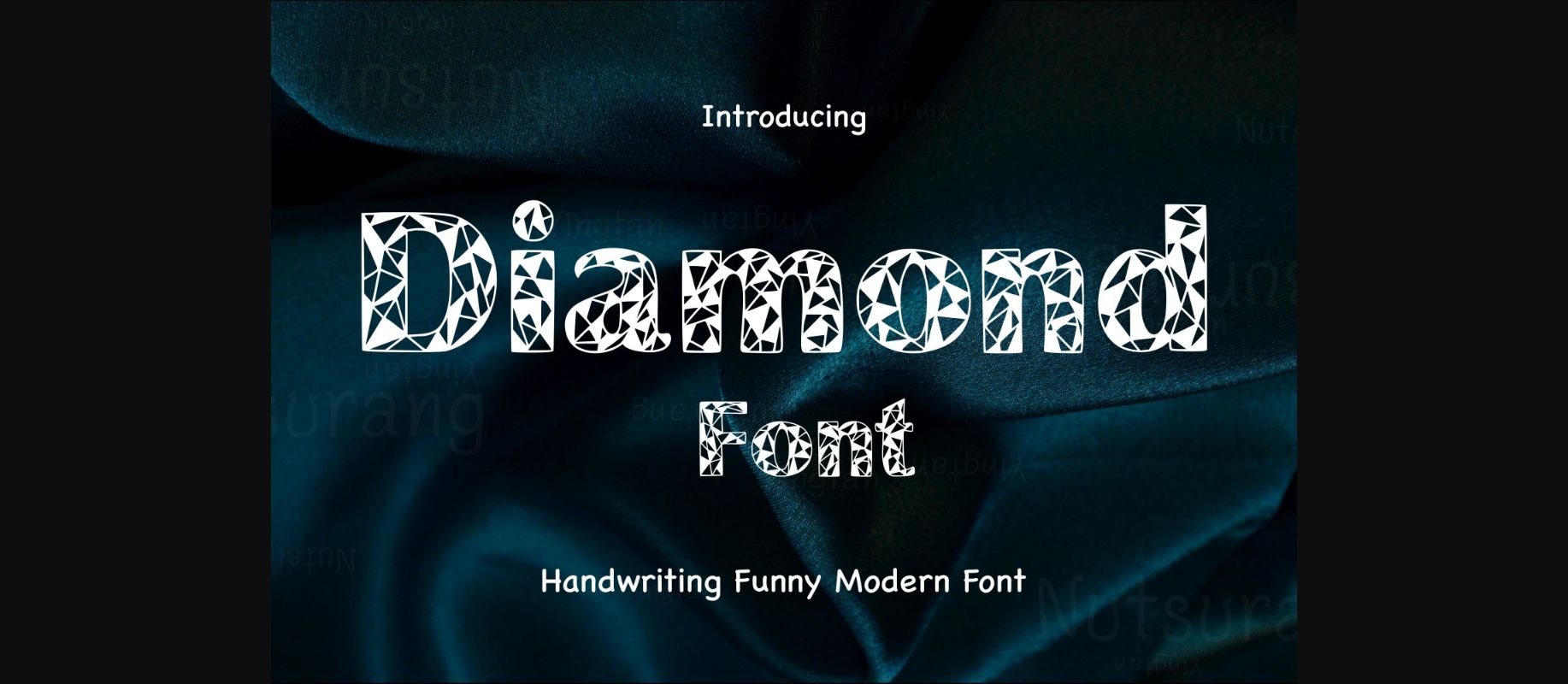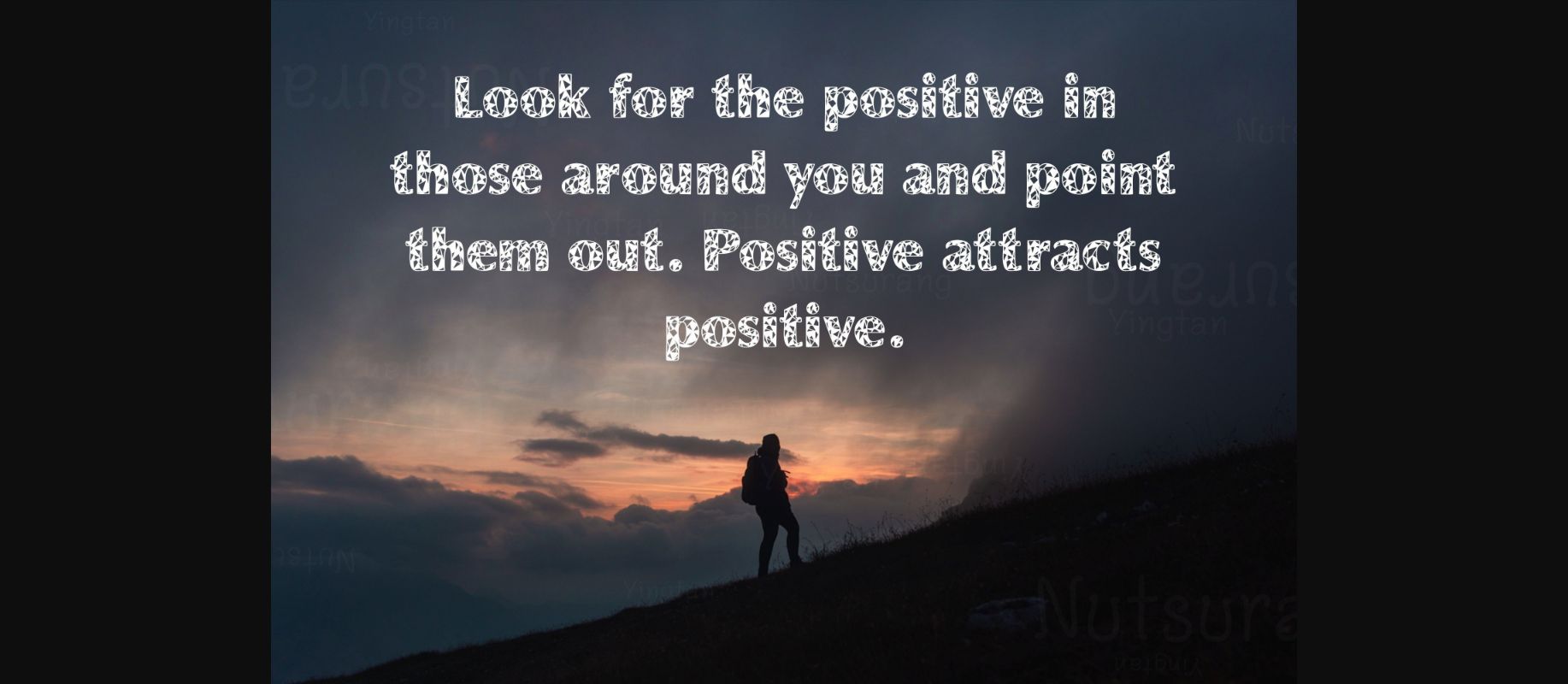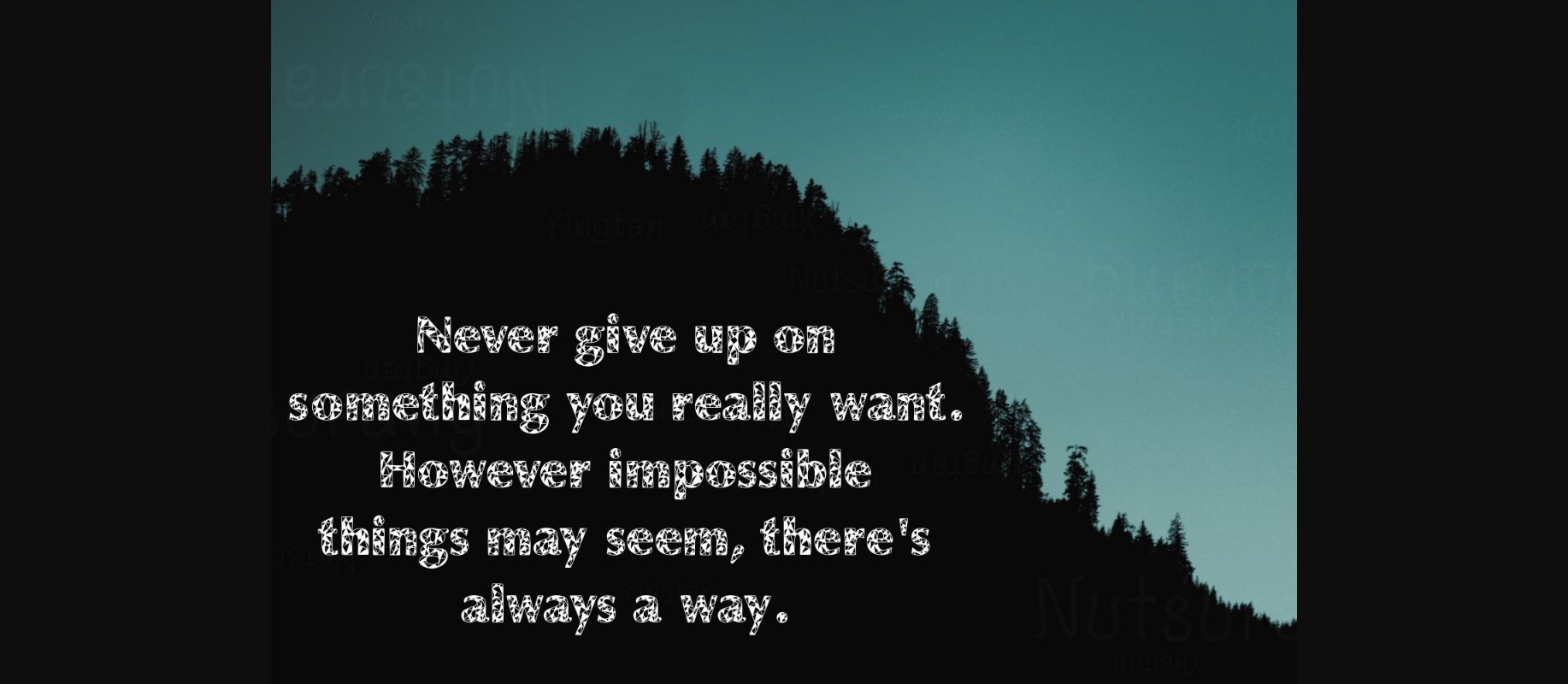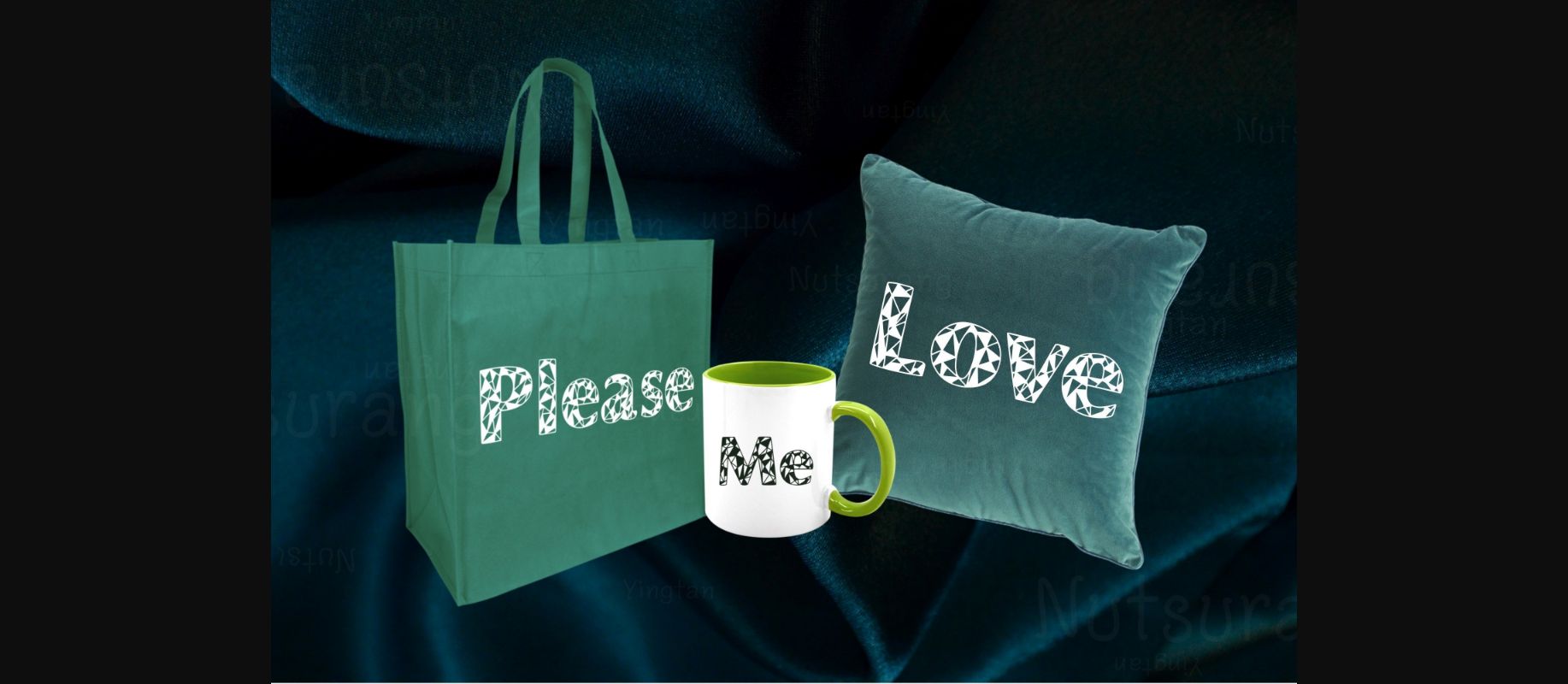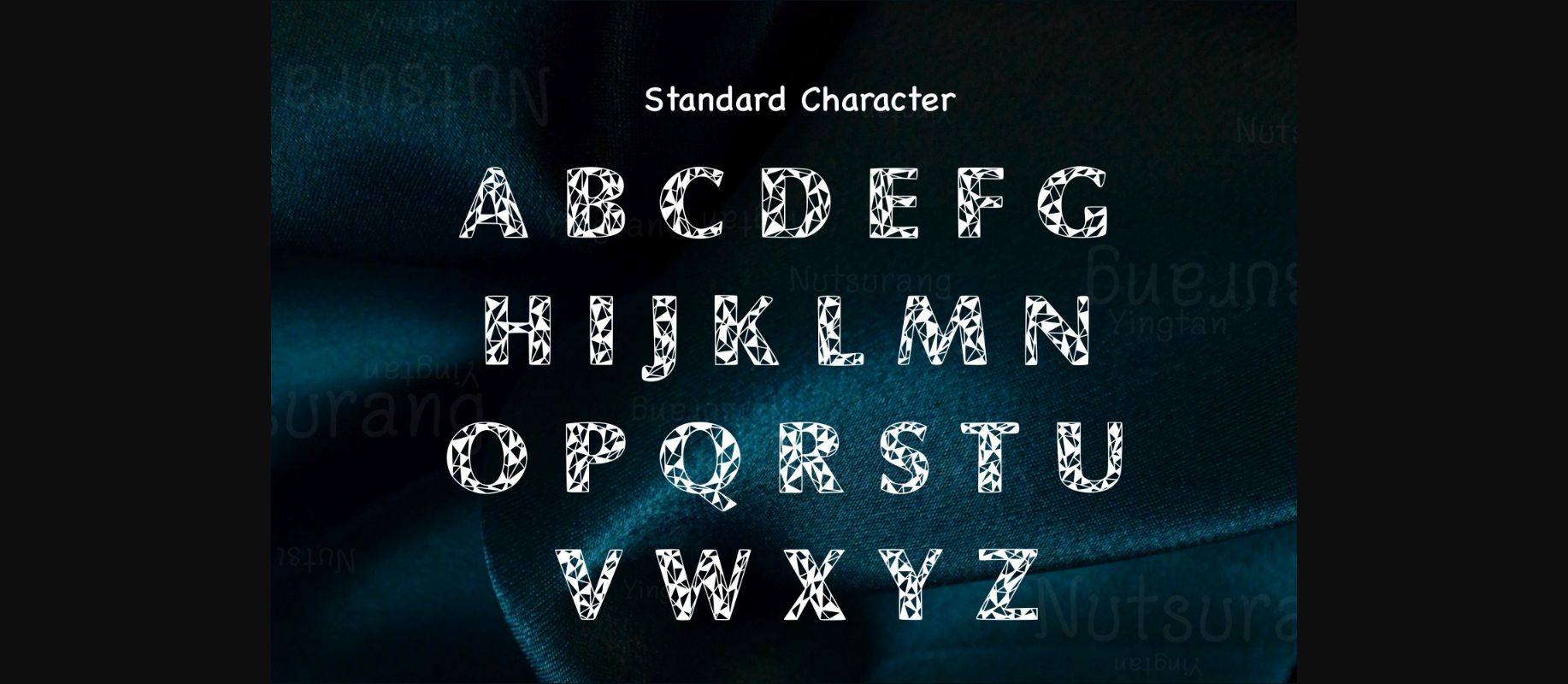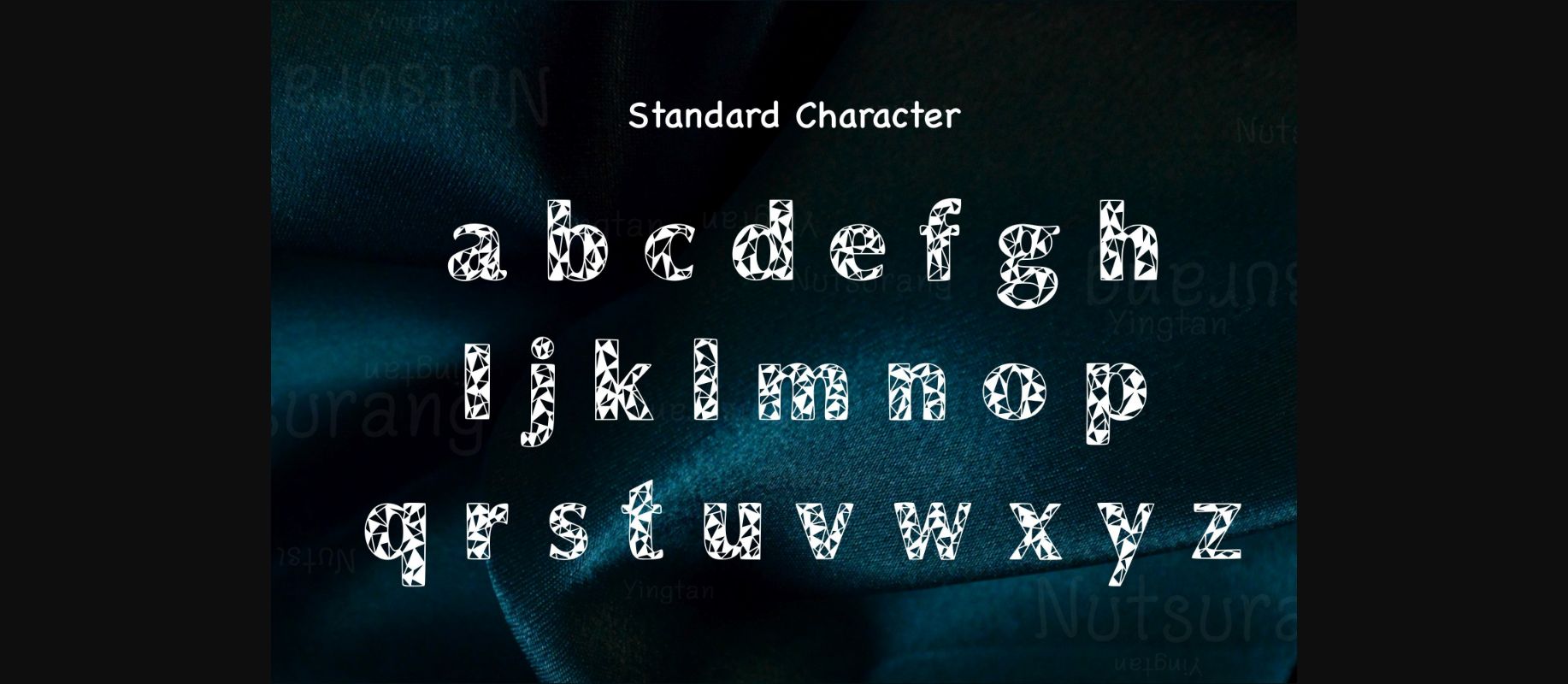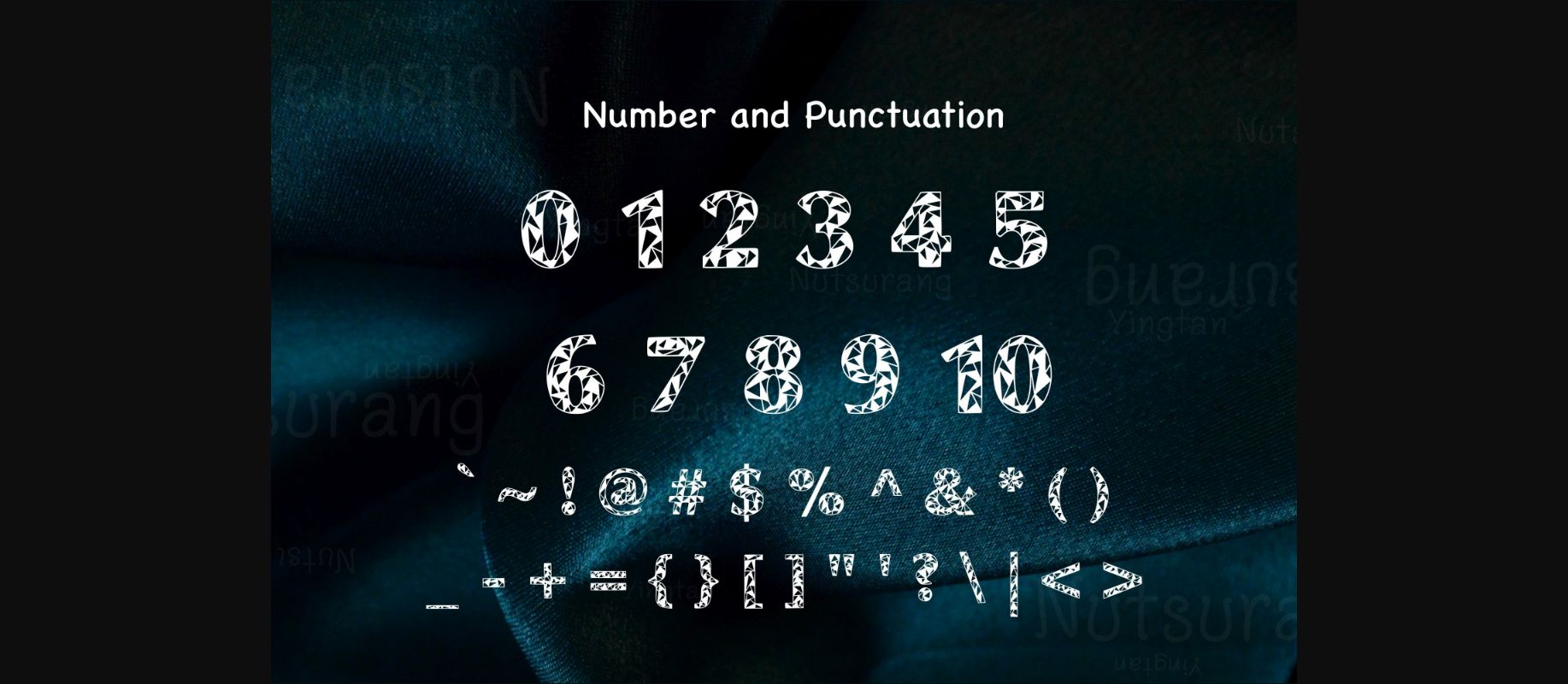
HomeDecorative FontsDiamond Font Decorative Fonts Diamond Font FacebookXPinterestWhatsApp 1 of 9 ... Diamond Font Poster 2... Diamond Font Poster 3... Diamond Font Poster 4... Diamond Font Poster 5... Diamond Font Poster 6... Diamond Font Poster 7... Diamond Font Poster 8... Diamond Font Poster 9... About Diamond Font Diamond is a cool and unique decorative font. Make your projects shine with incredibly gorgeous font! DOWNLOAD NOW People also explored Bubble Peanut Sunset Script Font Camalia Amira Font Subtlety Font Bolpoint Note Font Holymore Font Odishary Font Lotspote Font Morning Glory Font 272 0 TagsDiamondDiamond Font Previous articleBread & Cookies FontNext articleBaby Koala Font LEAVE A REPLY Cancel reply Comment: Please enter your comment! Name:* Please enter your name here Email:* You have entered an incorrect email address! Please enter your email address here Website: Save my name, email, and website in this browser for the next time I comment. Personal Use Free Septhine Personal Use Free Read more about this font Arc Personal Use Free Read more about this font Bukhari Script Personal Use Free Read more about this font Millea Personal Use Free Read more about this font BLOG Top 10 Handwritten Fonts That Elevate Your Designs Top 10 Handwritten Fonts That Will Elevate Your Designs Handwritten fonts bring a warm, personal touch to every creative project. Whether you're designing logos, invitations,... Fonts That Capture the Spirit of New York City Where to Buy American Fonts Online in 2024 5 Fonts That Will Dominate Design Trends in 2026